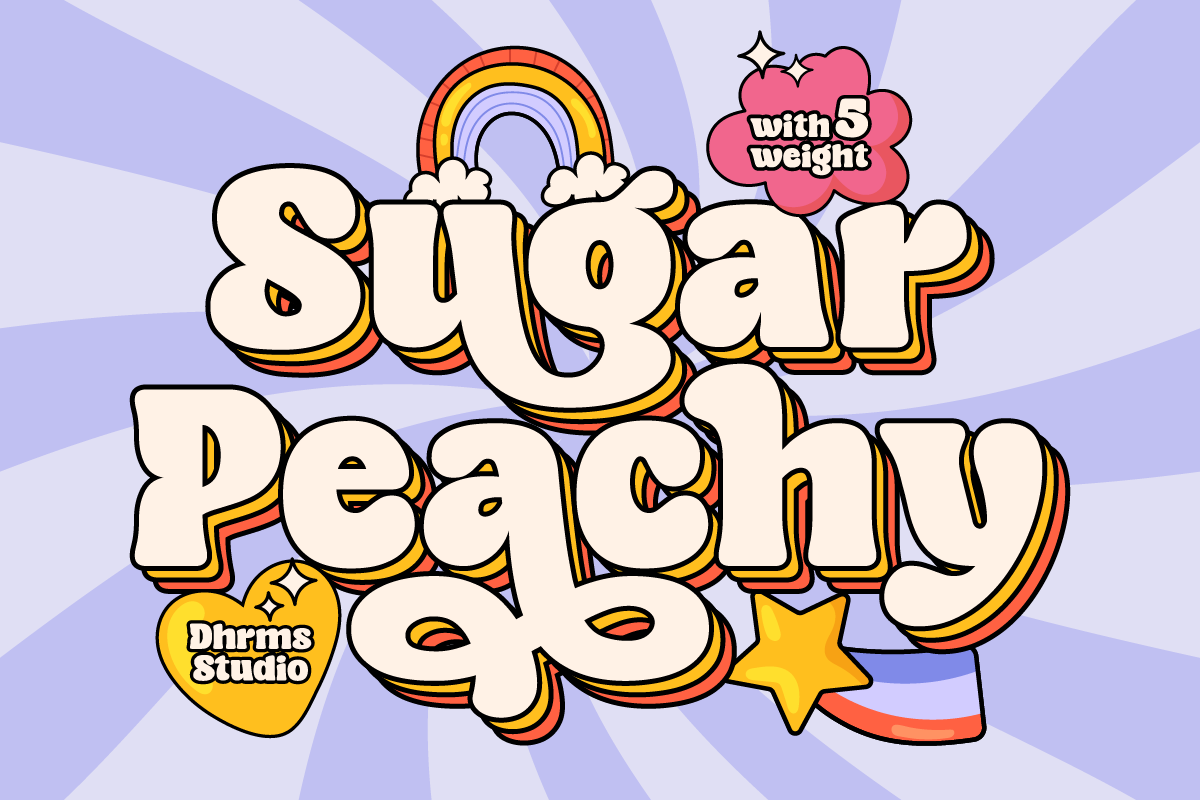
Sugar Peachy - Retro Soft Family Free Download
Please note, you must purchase this font for commercial use. However, you can easily download Sugar Peachy - Retro Soft Family Free Download for personal use and testing purposes. Sugar Peachy - Retro Soft Family is a delightful and playful typeface with a soft, retro flair. Perfect for vintage-inspired designs, branding, posters, and creative projects, this font family brings a nostalgic, yet modern feel to your typography. The rounded, smooth letterforms make it ideal for projects that need a friendly, approachable vibe. Whether you're designing for a retro-themed event, a stylish product label, or a fun social media campaign, Sugar Peachy - Retro Soft Family Free Download adds a unique, cheerful touch. Download Sugar Peachy - Retro Soft Family Free Download today and explore its potential before opting for a commercial license.